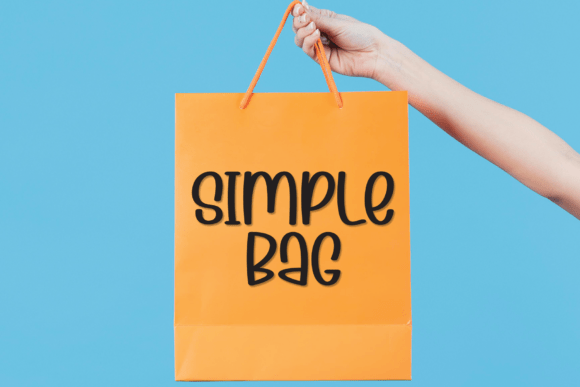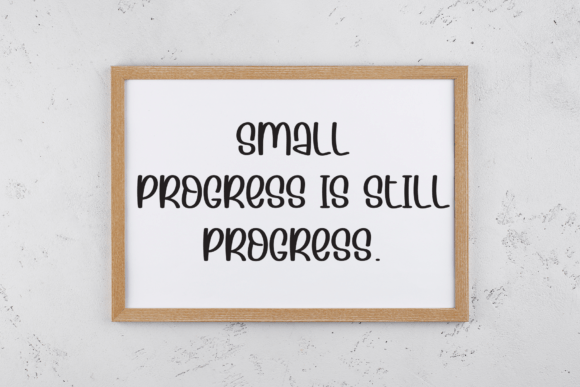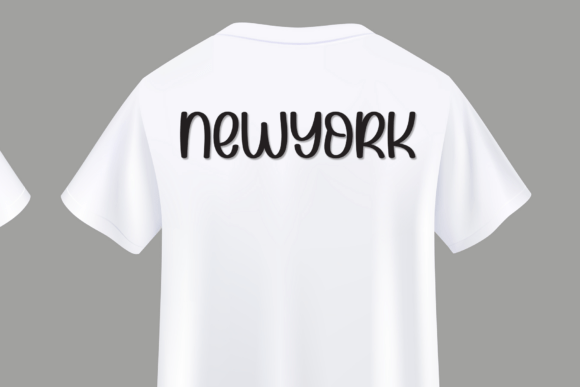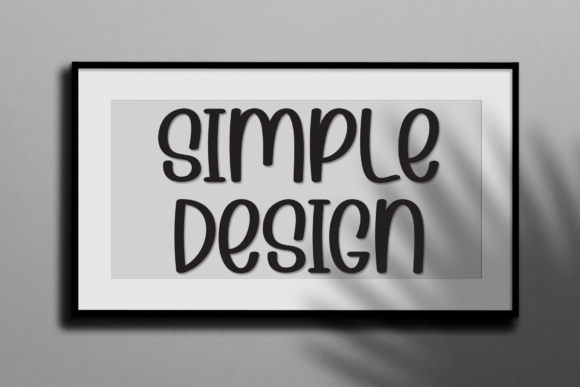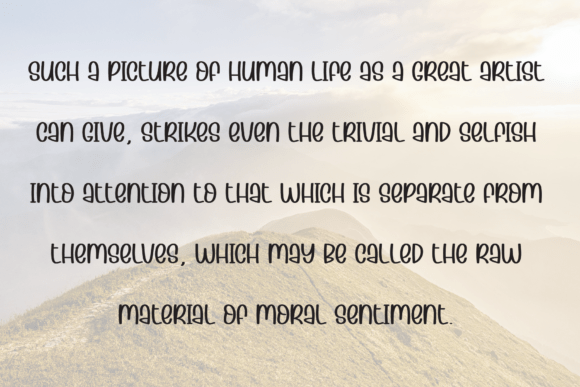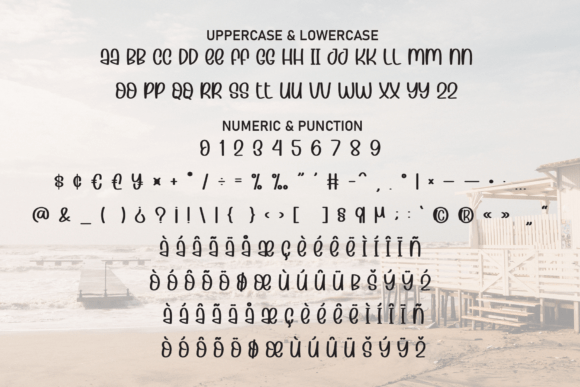
Introducing Beach Vantage Font: Elevate Your Designs with a Touch of Coastal Charm
Are you a designer, crafter, or DIY enthusiast looking for a unique and stylish font to take your projects to the next level? Look no further than Beach Vantage Font, the latest addition to our collection of special creative products. Our fonts are designed to provide an extraordinary experience, and Beach Vantage Font is no exception. With its beautiful, hand-crafted lettering style, this font is perfect for a wide range of applications, from wall displays and wedding invitations to social media post logos, advertisements, product packaging, and more.
What Makes Beach Vantage Font So Special?
Beach Vantage Font boasts a range of features that make it an ideal choice for designers and crafters. Here are just a few reasons why you’ll love working with this versatile font:
- Latest Style Letters: Our font features beautifully crafted, modern lettering that’s perfect for adding a touch of coastal charm to your designs.
What You Can Create with Beach Vantage Font
The possibilities are endless when it comes to using Beach Vantage Font. Here are some ideas to get you started:
- Wall Displays: Create stunning wall art, quotes, and posters that are sure to impress.
- Wedding Invitations: Add a touch of elegance and sophistication to your wedding stationery with this beautiful font.
- Social Media Post Logos: Elevate your social media presence with eye-catching logos and graphics.
- Advertisements: Use Beach Vantage Font to create compelling ads that grab attention and drive results.
- Product Packaging: Add a personal touch to your product packaging and make it stand out on store shelves.
- Product Designs: Use the font to create stunning product designs, from t-shirts to mugs and more.
- Labels: Create professional-looking labels for your products or business.
- Photography: Add a touch of style to your photos with custom watermarks.
- Invitations: Create beautiful invitations for parties, events, and more.
- Stationery: Elevate your stationery with custom letterheads, notecards, and more.